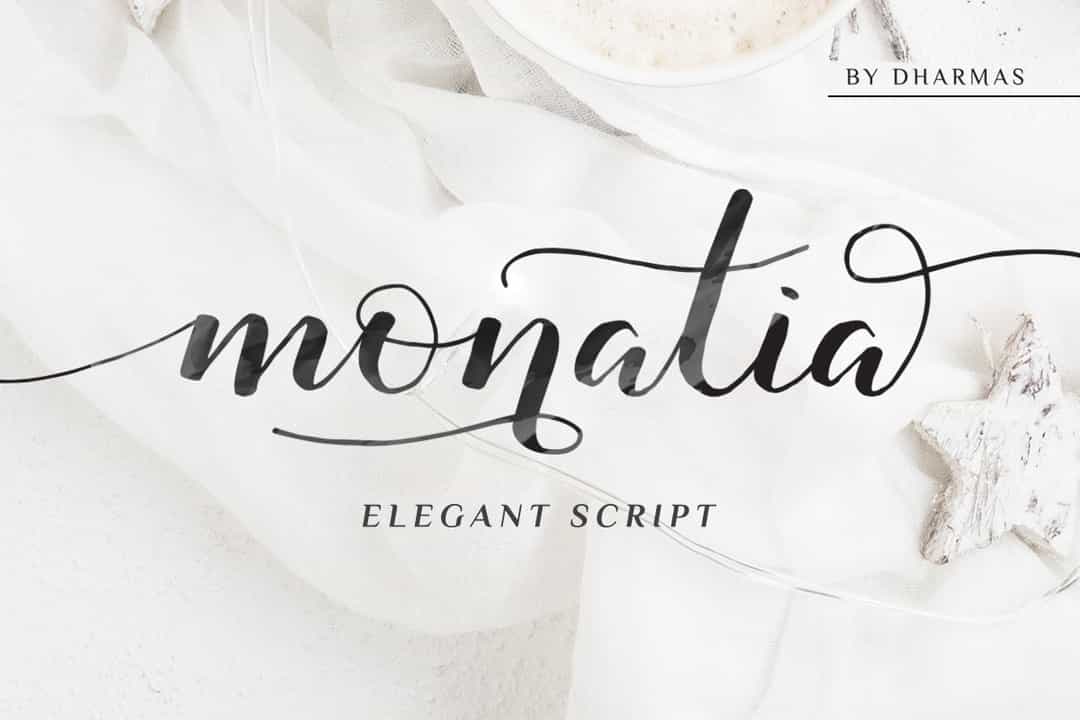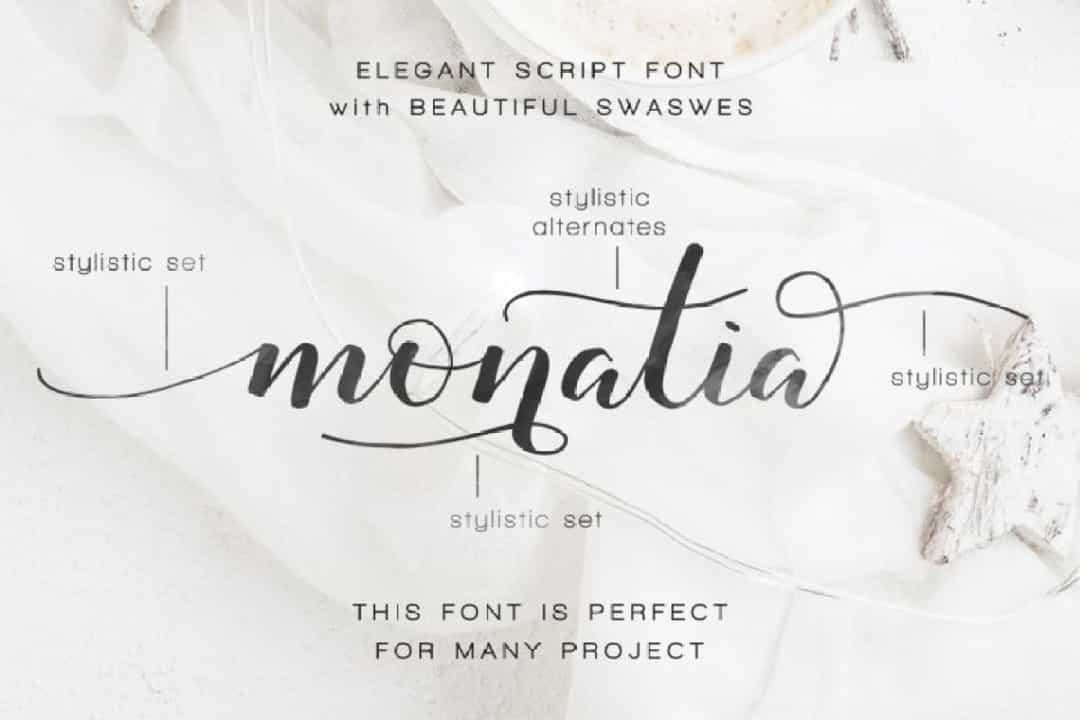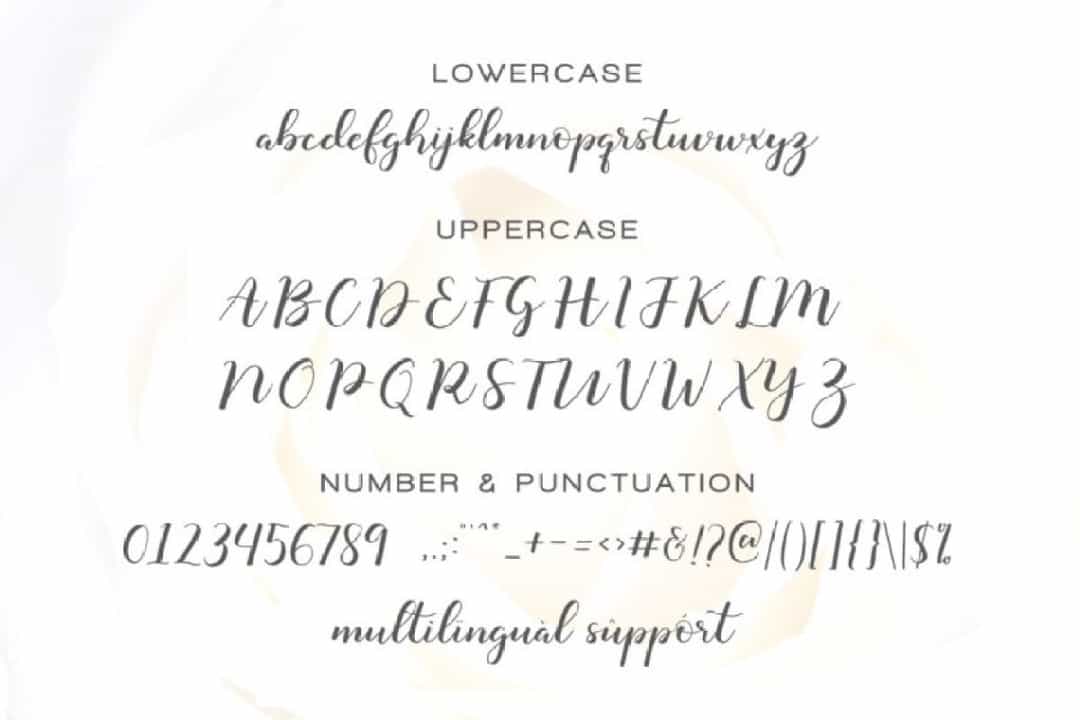
Monatia script font was designed with elegance and modernity in mind! Built using OpenType features, Monatia comes equipped with starting and ending swashes as well as alternate swash characters for most lowercase punctuation characters (letters, numbers), alternates ligatures and support for various languages.